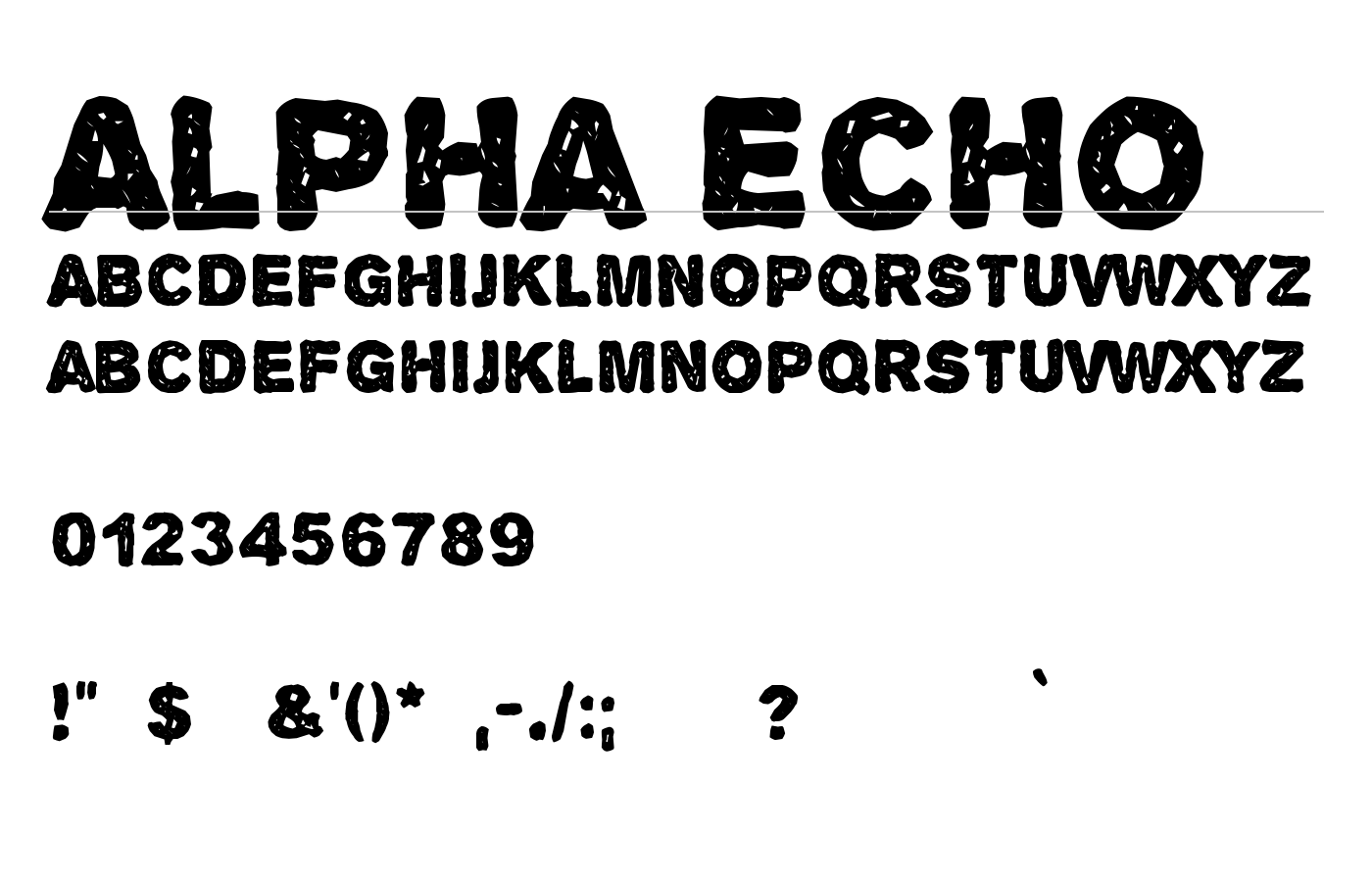
Alpha Echo is a bold, chunky sans serif font with a playful, hand-drawn texture that gives it a dynamic, informal feel. Its irregular edges and slightly condensed letterforms make it perfect for creative projects, eye-catching headlines, and branding that wants to convey energy and approachability. This font works well in posters, packaging, and any design that benefits from a strong, unique personality with a casual, artistic touch.
Alpha Echo Font
About Alpha Echo Font
| Font family | Alpha Echo Font |